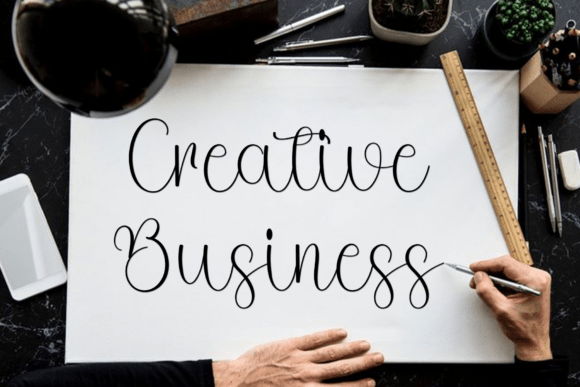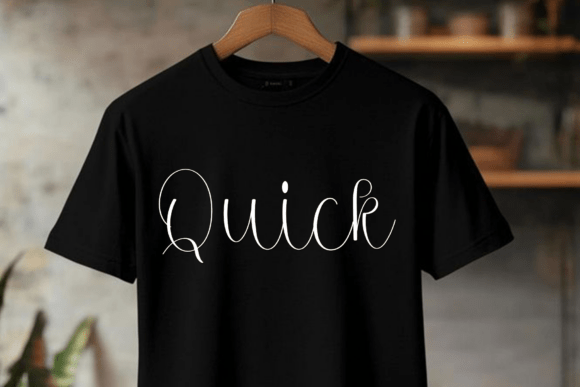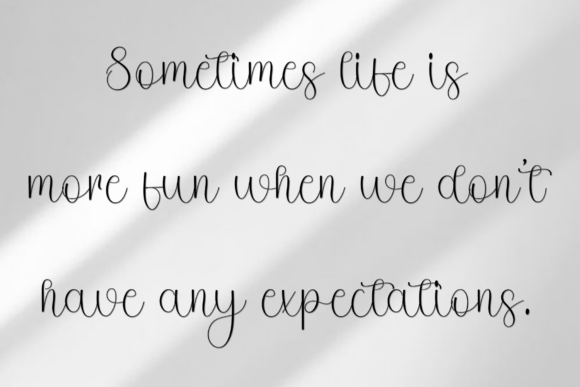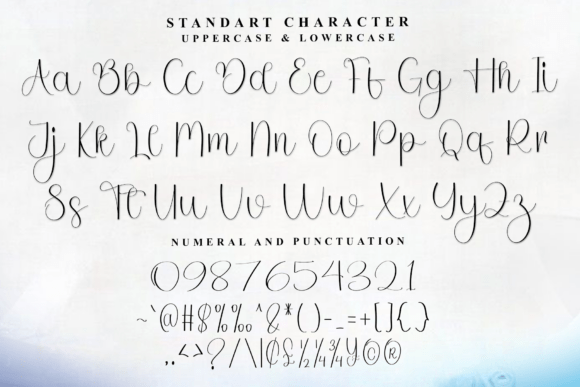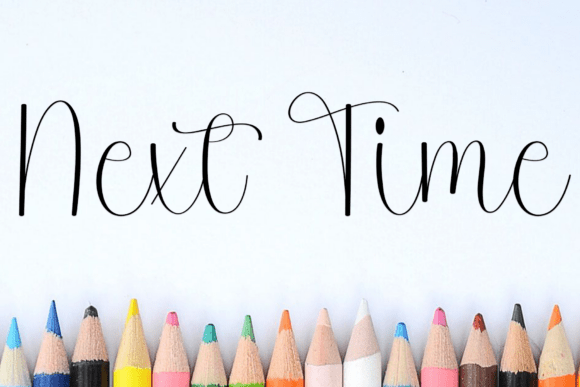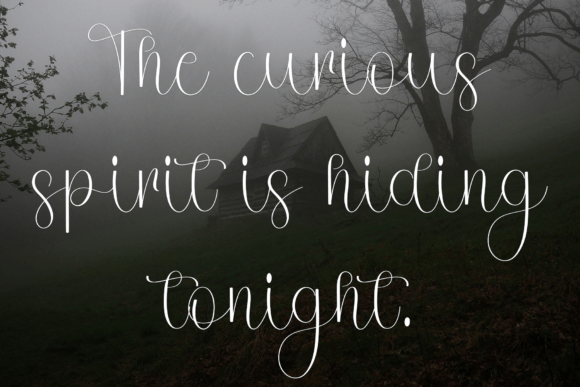
Discover the Charm of American Handmade Font: Elevate Your Designs with a Unique Touch
In the world of typography, a font can make all the difference in capturing the essence of a design. For crafters, designers, and creative enthusiasts, finding the perfect font that combines beauty, uniqueness, and versatility is a treasure. This is where the American Handmade Font comes into play, a stunning typeface that is not only visually appealing but also rich in character.
The Distinctive Character of American Handmade Font
American Handmade Font stands out with its soft, unique touch that sets it apart from more conventional fonts. Its distinctive strokes are carefully crafted to give it a special character, making it instantly recognizable. Whether you’re working on a design project, crafting a brand identity, or creating artistic pieces, this font adds a meaningful and versatile element that can elevate your work.
One of the key advantages of the American Handmade Font is its incredible versatility. With a wide range of characters, this font is perfect for various design projects, crafts, and other creative works. From signage and posters to digital graphics and handmade products, the American Handmade Font can be seamlessly integrated into different artistic and creative fields.
Compatibility and Accessibility
Natural Font Style for Authentic Designs
The natural style of the American Handmade Font is one of its most appealing features. It brings an organic, handcrafted feel to your designs, making them more authentic and engaging. In a digital age where uniformity can sometimes dominate, this font offers a refreshing change, allowing your work to stand out with a personal touch.
Ideal for a Wide Range of Products
Whether you’re creating products for personal use or designing items for commercial sale, the American Handmade Font is an excellent choice. Its unique charm can enhance a wide range of products, including:
- Stationery and greeting cards
- Branding materials like logos and brochures
- Digital products such as ebooks and websites
- Handmade crafts and art pieces
Engage Your Audience
The ultimate goal of any design is to engage and resonate with its audience. The American Handmade Font, with its eye-catching appeal, can help you achieve just that. Its distinctive style captures attention and invites viewers to explore your work further. Whether you’re targeting a niche audience or aiming for a broader appeal, this font can play a pivotal role in making your designs more attractive and memorable.
The American Handmade Font is more than just a typeface; it’s a creative tool that can transform your designs with its unique touch. Its blend of beauty, versatility, and compatibility makes it an invaluable asset for designers and crafters alike. By incorporating this font into your projects, you not only enhance their aesthetic appeal but also give them a distinctive character that can set you apart in the world of design and crafting.
So, why settle for ordinary when you can add an extraordinary touch to your work? Explore the possibilities with the American Handmade Font and discover how it can elevate your creative projects to new heights.